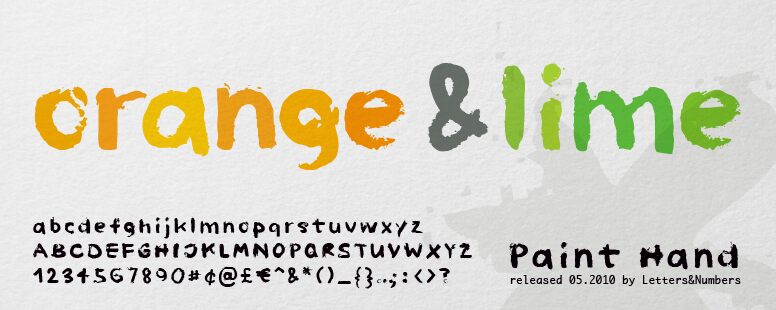
Paint Hand by Ursula Hitz is a free rough brush display font with broad daubed strokes and an unmistakably handmade outline. The letters are chunky but uneven, with softened corners, ragged edges, and small flecks that resemble stray paint. Their shifting widths and slightly lopsided forms keep the lettering lively.
A poster for an art workshop is an especially good fit, since the type already looks brushed onto the surface. It also suits craft packaging, children's publishing, and casual event graphics, where a clean digital finish would feel out of place. The recurring splatters and worn edges can echo painted illustrations, handmade labels, or messy studio props.